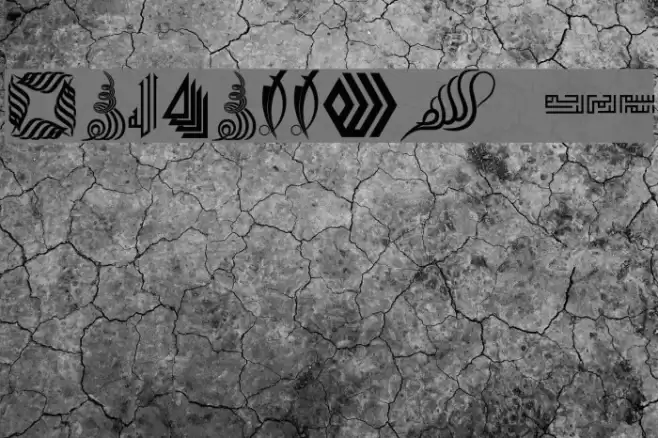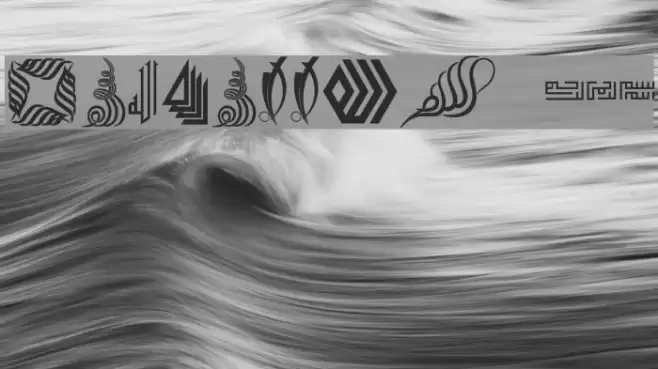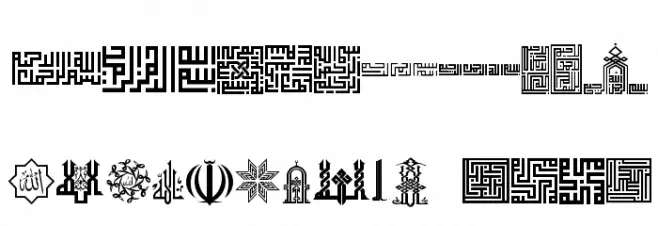
Besmellah 5 Font
Besmellah 5 Description
A highly decorative and intricate font composed of geometric, floral, and abstract motifs inspired by Islamic art and calligraphy. The glyphs are complex, with bold lines, high contrast, and ornamental details, making each character appear as a unique artwork rather than a traditional letterform.
Ornamental, Islamic art-inspired decorative font with intricate geometric and floral motifs from Dingbats fonts.
- Proposed Projects: Religious or cultural event posters, book covers, branding for Middle Eastern or Islamic-themed products, decorative certificates, art installations.
- Overall Style: Decorative, Islamic, Artistic
- Use Case: Logos, Headlines, Posters, Art pieces